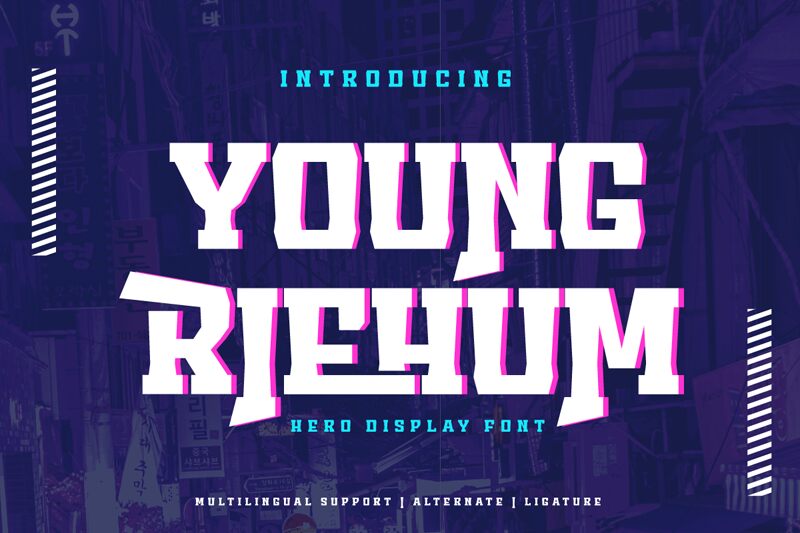
Young RIEHUM font by Twinletter is a blocky geometric typeface characterized by its rigid vintage-inspired structure set to make an impactful presence. This display font comes with expanded bold letters remarkably legible and stylish for texts that require grabbing the viewers’ attention in an elegant, aesthetic manner.
Make free use of Young RIEHUM in landmark or road signs, headlines, and titles. Newest magazine covers could be created for special releases (digital or printed) as well as exceptionally inviting music album covers. While branding and logo design are possible options among others; website design, business cards, digital advertising materials such as social media posts will achieve visual pleasure with it.